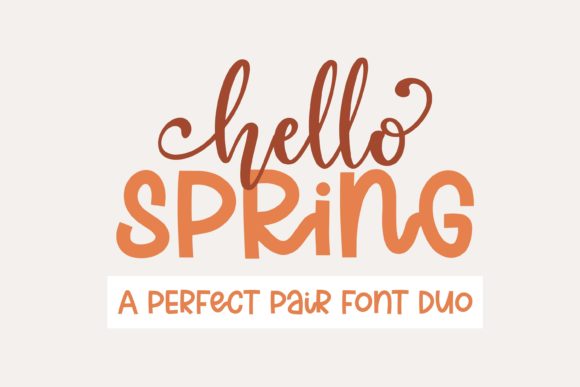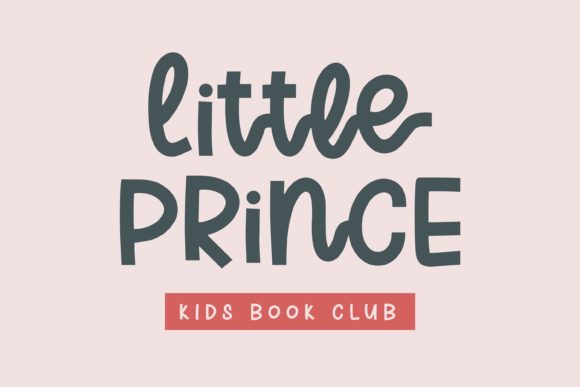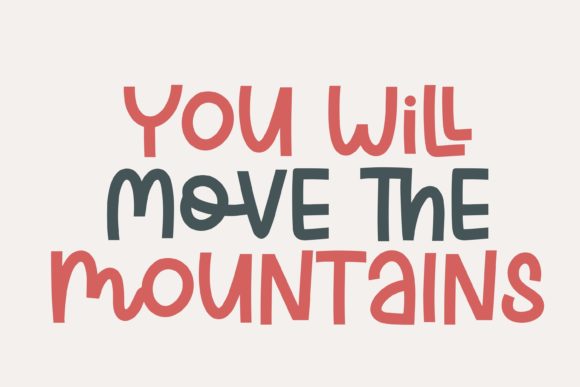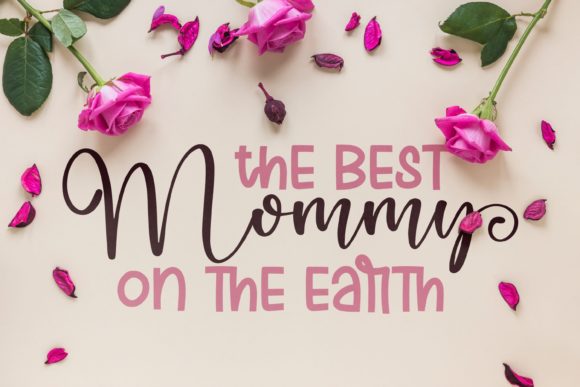
About Hello Spring Font
“Hello Spring” is a versatile font consisting of both a handwritten style and a sans serif style. This unique combination results in a font that exudes charm and delicacy. With its PUA encoding, accessing all the glyphs and swashes is effortless, providing you with creative freedom.
The font’s duo-styled design offers a balance between the elegance of handwritten characters and the simplicity of sans serif letters. Whether you’re working on invitations, branding, quotes, social media graphics, or any other project that requires a touch of charm and versatility, “Hello Spring” has the potential to enhance your work with its distinct and artistically crafted aesthetic.
The font’s ability to seamlessly blend two different styles allows it to cater to a wide range of design contexts. Its charm and delicacy shine through, making it a valuable asset for designers aiming to create designs that are both visually appealing and uniquely versatile.
In essence, “Hello Spring” is more than just a font—it’s a creative instrument that adds charm and versatility to your ideas. Its duo-styled design and PUA encoding make it a valuable tool for designers striving to create standout and captivating designs that leave a lasting impression.